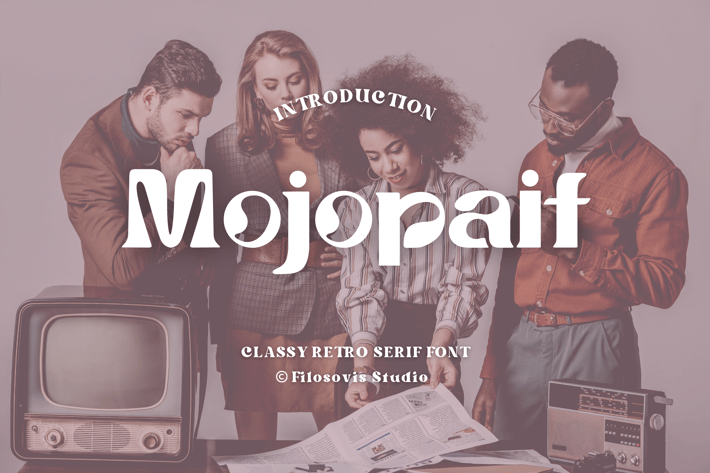
Mojopait | Classy Retro Serif Font
Description
For your creative project, use the Mojopait-themed Classy Retro Serif Font. Classy retro serif Font is appropriate for every kind of design you produce, including greeting cards, posters, logos, and branding.